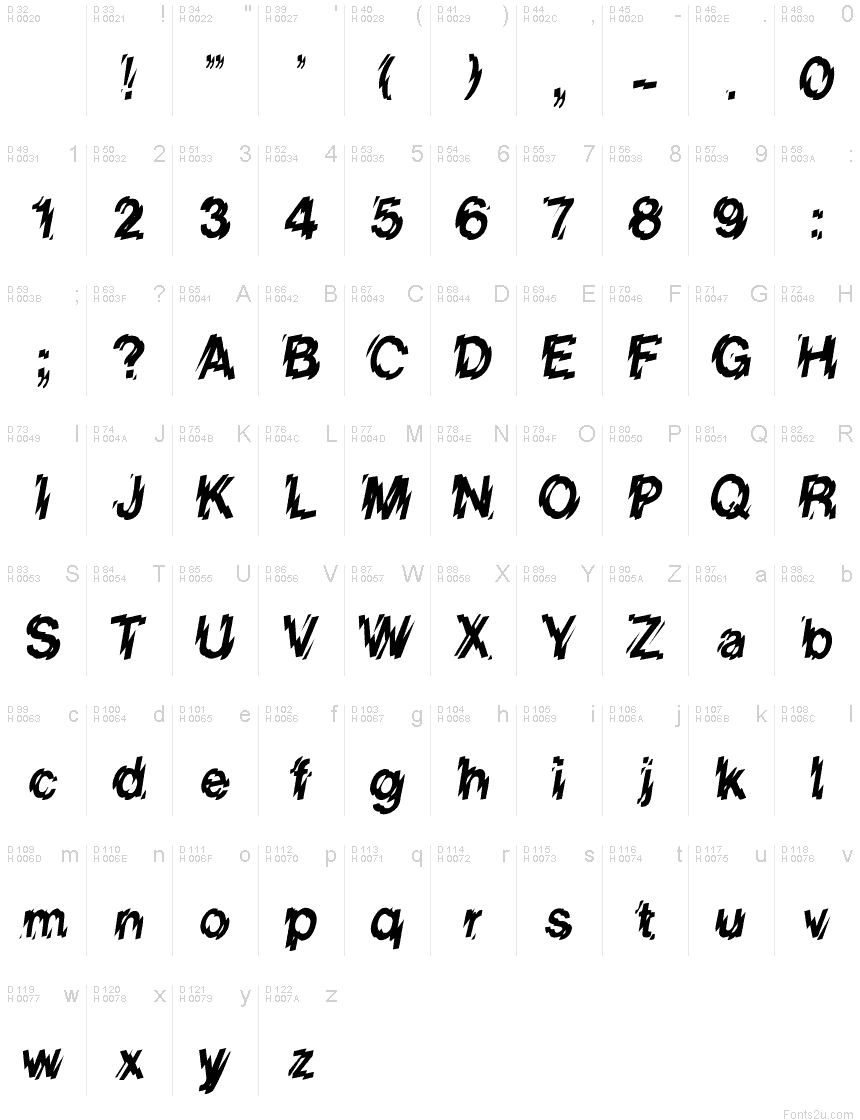
Glass Houses
Glass Houses font by Digital Graphic Labs is a free distorted display typeface that looks like it’s been sliced, twisted, and flung across the page. Each letter feels shattered and slightly off-kilter, with thick, inky strokes that curl and jab like shards of broken glass mid-flight. There’s a strong sense of motion and chaos here, making headlines feel loud, unstable, and just a bit dangerous.
Using Glass Houses, you can push drama in horror posters, underground club flyers, glitchy album covers, skate or streetwear branding, Halloween merch, and edgy game titles. This free font works best big and bold, where its jagged curves and skewed rhythm can really scream. For balance, pair it with a clean, narrow sans serif for body text and small details, letting Glass Houses handle the wild, attention-grabbing words.
Years in the making, Glass Houses has a shattered glass feel.